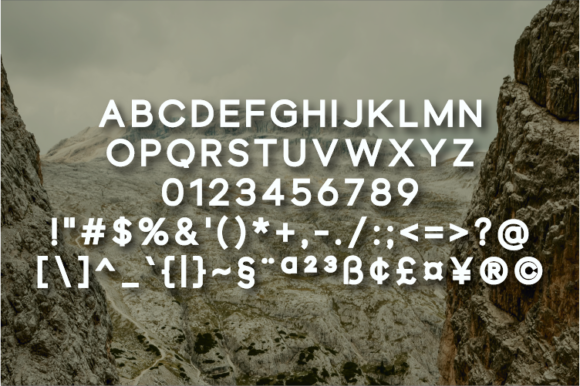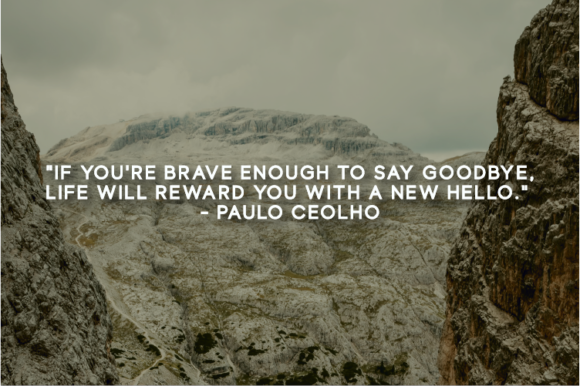
The Bluevine Font: A Trendy Sans Serif for Creative Projects
I still remember the frustration of working on a logo design project, only to get stuck on finding the perfect font. My client wanted something modern, yet approachable; something that would make their brand stand out. After hours of browsing through font libraries, I stumbled upon Bluevine – a trendy sans serif font that instantly caught my attention. In this article, I’ll share my experience with Bluevine, its features, and how to make the most of it in your creative projects.
An Honest Review of Bluevine Font
What I Love About Bluevine ✨
• ✅ Modern and trendy look: Bluevine has a fresh, contemporary feel that makes it perfect for logos, headings, and other design elements.
• ✅ Versatile: This font can be used for a wide range of projects, from t-shirts and letterheads to signage and posters.
• ✅ Easy to read: Despite its trendy look, Bluevine remains clear and legible, even at smaller font sizes.
• ⚠️ Limited language support: Bluevine might not support all languages or special characters, so make sure to check its capabilities before use.
• ⚠️ Not suitable for body text: While Bluevine is great for headings and titles, it might not be the best choice for longer blocks of text.
The Backstory of Bluevine Font
Bluevine was designed with the modern designer in mind. Its creator aimed to craft a font that would be both trendy and versatile, suitable for a wide range of creative projects. Inspired by the urban landscape and modern typography, Bluevine was born as a fresh take on the classic sans serif font.
Q: What type of projects is Bluevine best suited for? A: Bluevine is great for logos, headings, t-shirts, letterheads, signage, labels, posters, badges, and more.
Q: Does Bluevine support OpenType features? A: Yes, Bluevine supports OpenType features, including stylistic alternates and glyphs.